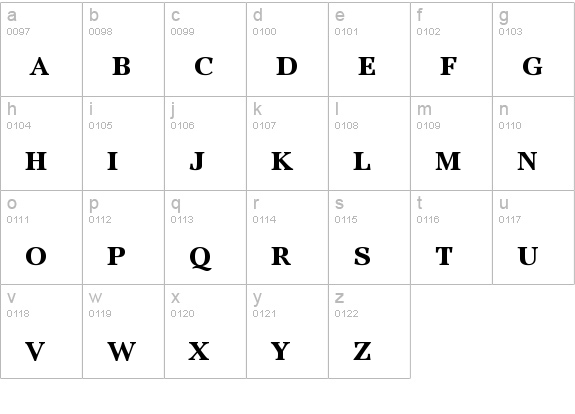
JamilleSCEF-Bold is a strong, high-contrast variant in the JamilleSCEF typeface family \xE2\x80\x94 well suited to headlines, attention-grabbing titles, and strong calls-to-action.
JamilleSCEF-Bold font is a stunning display font that exudes elegance and sophistication. Its bold and distinct letterforms make it perfect for capturing attention and leaving a lasting impression. The font embodies a unique balance between modernity and a classic aesthetic, making it suitable for a wide range of design projects. With its generous curves and sharp edges, JamilleSCEF-Bold font adds a touch of modern flair to any design. Whether used for branding, headings, packaging, posters, or any other creative endeavor, this font is sure to elevate the visual impact of your work. What sets JamilleSCEF-Bold font apart is that it is not only visually captivating, but also freely available to download. FontsMarket.com offers this font for free, allowing designers and creatives to access its beauty without any cost. This accessibility ensures that anyone can benefit from the stylish and professional look that JamilleSCEF-Bold font brings to their projects. So, if you are in need of a bold and eye-catching font that effortlessly combines modernity and classic charm, look no further than JamilleSCEF-Bold. Download this font for free at FontsMarket.com and unlock its potential to transform your designs into visual masterpieces.